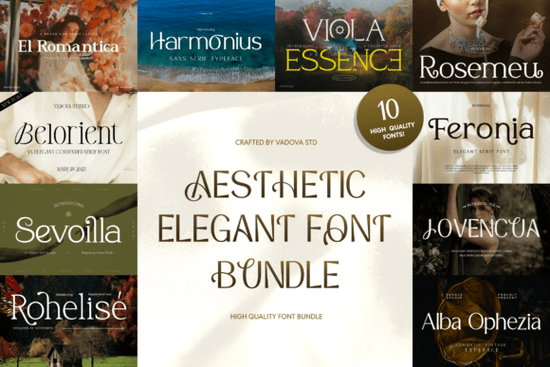
The Aesthetic Elegant Bundle Font is a curated set of refined typefaces built for designers who need that polished, high-end look across branding, packaging, and editorial work. If you've been searching for a font collection that balances beauty with readability, this bundle delivers letterforms with graceful details that work across multiple project types from wedding stationery to cosmetic labels.
What Makes This Font Bundle Stand Out?
Not all elegant font bundles are created equal. Many sacrifice readability for style, or the other way around. What sets this collection apart is the careful balance between charm and clarity. Each typeface in the bundle draws from modern editorial aesthetics and luxury branding traditions, so the letterforms feel sophisticated without being hard to read at smaller sizes.
The bundle includes a mix of styles that complement each other. You get fonts that work beautifully for headlines, body text, and accent elements meaning you can build a full visual identity using just this one collection. This is especially helpful for small business owners and freelance designers who want a cohesive typographic system without purchasing dozens of individual fonts.
Who Is This Bundle Best Suited For?
This collection works well for a range of creative professionals and hobbyists:
- Fashion and beauty brands looking for typography that feels premium and feminine
- Print-on-demand sellers who need elegant typefaces for mugs, tote bags, and apparel
- Wedding stationery designers working on invitations, menus, and place cards
- Cosmetic packaging designers who need fonts that convey luxury and softness
- Social media managers creating stylish Instagram posts, story templates, or Pinterest graphics
- Editorial designers working on magazine layouts, lookbooks, and catalogs
If your work involves any kind of aesthetic-driven visual design, there's a good chance you'll find a typeface in this bundle that fits your project.
How Do You Use Elegant Fonts Without Overdoing It?
Elegant typography is powerful, but it can easily tip into "overdesigned" territory. Here are a few practical tips for using this bundle effectively:
- Pair with restraint. Use one decorative or elegant font for headlines and pair it with a clean, simple sans-serif for body text. This creates contrast and keeps the design readable.
- Mind the size. Delicate letterforms look stunning at larger sizes but can lose detail when scaled down too much. Test your fonts at the actual size they'll appear in your final design.
- Use generous spacing. Elegant fonts often benefit from slightly increased letter-spacing and line-height. This gives the design breathing room and reinforces the refined feel.
- Limit your palette. Stick to two or three typefaces from the bundle per project. Too many competing styles create visual noise.
What Types of Projects Work Best With This Bundle?
Based on the included typefaces, here are some specific project ideas where these fonts really shine:
- Branding kits for boutique shops, salons, and lifestyle brands
- Product packaging for skincare, candles, and artisan goods
- Blog graphics and headers for fashion, beauty, and lifestyle blogs
- Printable wall art with motivational or decorative quotes
- Digital planners and journals with a soft, feminine aesthetic
- Menu designs for cafés, bakeries, and upscale restaurants
The versatility of this bundle means you won't need to keep searching for new fonts every time a project comes in. Having a reliable set of elegant typefaces on hand saves time and keeps your work visually consistent.
How Does It Compare to Other Font Bundles?
There are plenty of serif and elegant font bundles available, but quality varies widely. Some bundles throw together 50+ fonts with little thought about how they work together. This collection takes a more intentional approach each typeface is designed with a shared aesthetic sensibility, so fonts from the bundle actually complement each other.